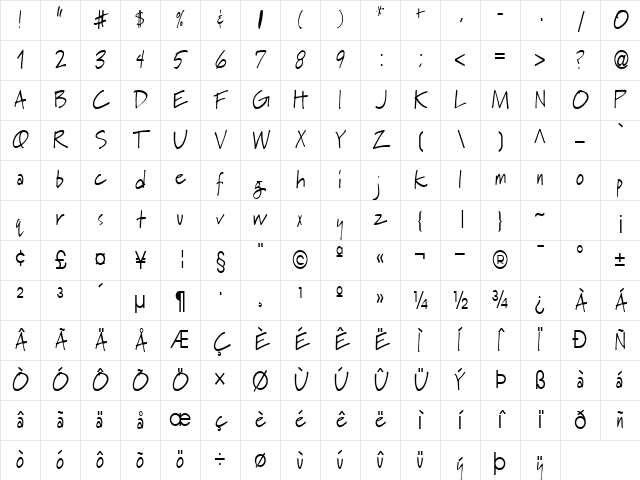
OtherView Regular
OtherView Family
OtherView Regular
Design Context for OtherView
OtherView is a composed and adaptable typeface that performs quietly and consistently across a wide range of design contexts.